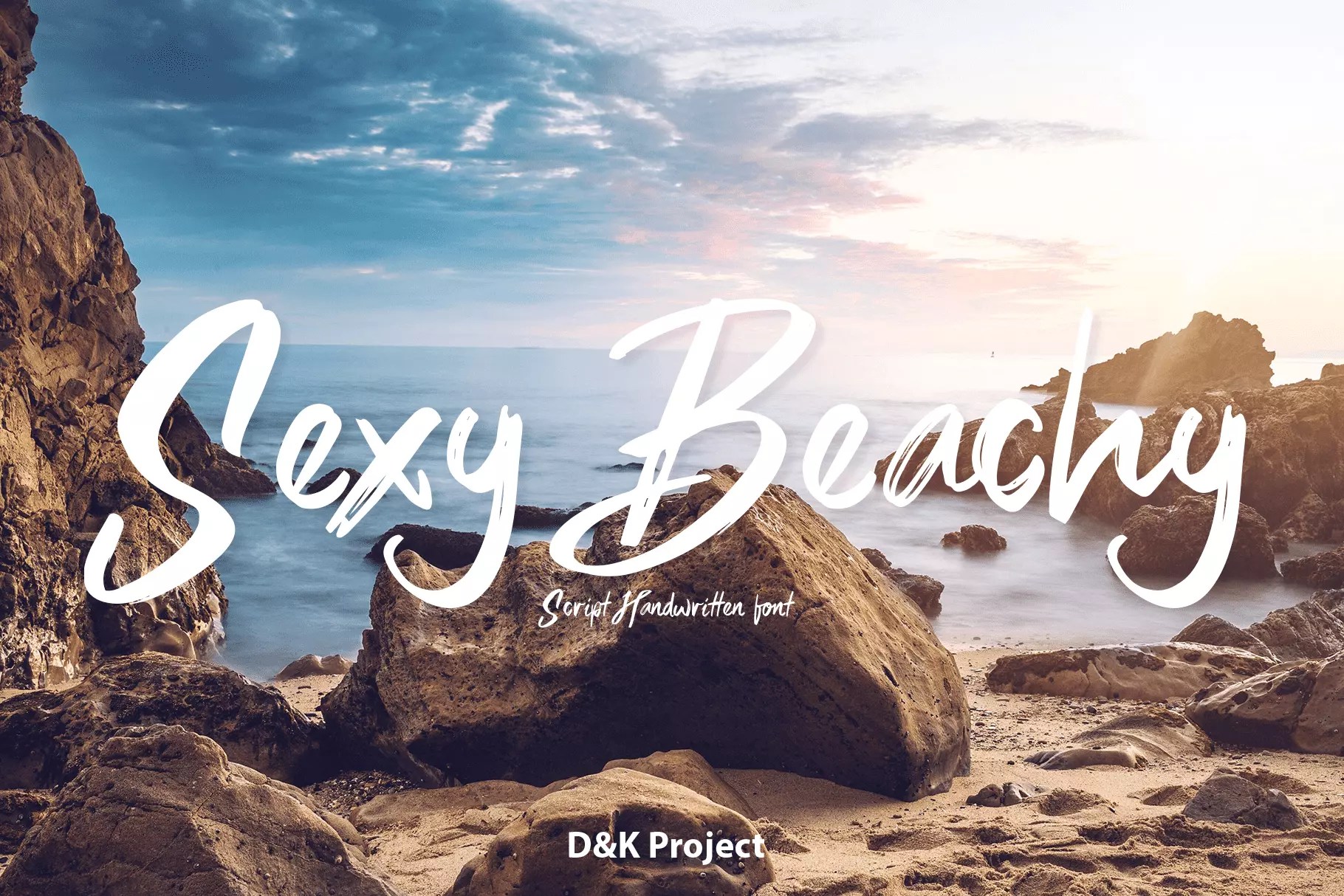
Review Of Beachy Fonts References
Review Of Beachy Fonts References. A little bit quirky, this font looks incredibly adept on a wide variety of contexts. This script font looks good on any design such as invitation cards, signs,.
The bundle comes with a serif and a sans serif. Instant downloads of 110 free beach fonts. The inscription in this design is perfect for a poster, logo, sign, and other elements that.
Fall In Love With Its.
Named after a popular florida beach city, bradenton reflects a casual, lazy day on the beach and not taking life too seriously. B beach ocean by wep. Take time to read carefully.
Beach Please By Graphix Line Studio.
A little bit quirky, this font looks incredibly adept on a wide variety of contexts. 0 items, $ 0.00 cart. Sentimental beach is created by maelle.k is a gorgeous handwritten font for personal use only.
Beachclub Font By Royalclub 5.
Beach Lombok By Letterena Studios.
This script font looks good on any design such as invitation cards, signs,. It’s stylish alternates and ligatures make this font the perfect match for any project. 5 free beach fonts · 1001 fonts we have 5 free beach fonts to offer for direct.